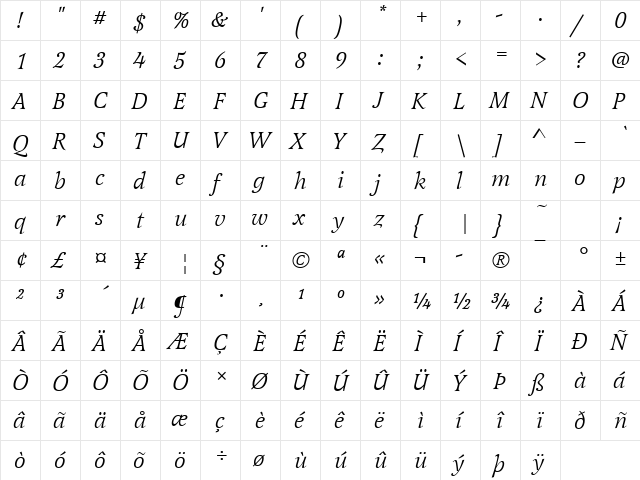
LatienneT Italic
Design Context for LatienneT Typeface
LatienneT takes a measured approach to typography — its balanced proportions and neutral character make it a reliable workhorse for both digital and print work. The dynamic lean of this cut emphasises speed and emphasis in any layout.